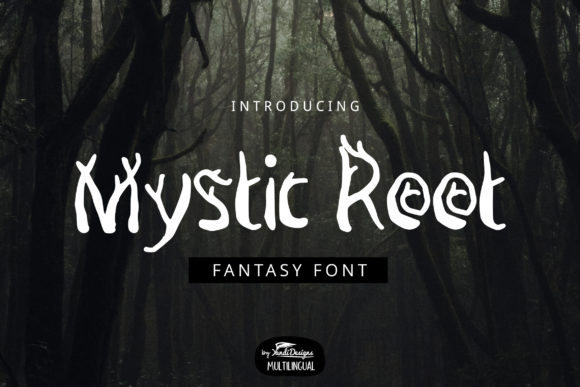
In a world of mundane fonts, behold the Mystic Root Font, a revolutionary display font that will ignite your creativity and captivate your audience. Designed by the renowned YandiDesigns, this font family is beyond a simple font; it is a gateway to a world of mesmerizing aesthetics and enchanting designs.
Step into a world where fonts are not just letters, but works of art, carefully crafted to evoke emotions and convey messages with unparalleled elegance. Mystic Root Font family is a testament to this philosophy, with its striking curves and mesmerizing details that command attention and leave a lasting impression.
Unlock the secrets of modern resume writing with Mystic Root Font, the ultimate weapon in your professional arsenal. Its bold and confident strokes exude professionalism, while its dynamic character adds a touch of creativity that will make your resume stand out from the crowd. Prepare to leave a lasting impression on potential employers and open doors to exciting career opportunities.
But Mystic Root Font's versatility extends far beyond the realm of resumes. Its captivating presence lends itself effortlessly to branding, advertising, and social media designs. Imagine your brand's logo adorned with the Mystic Root Font, exuding an aura of sophistication and leaving an indelible mark on your customers' minds. Unleash your creativity and watch as your designs transform into captivating visual masterpieces.